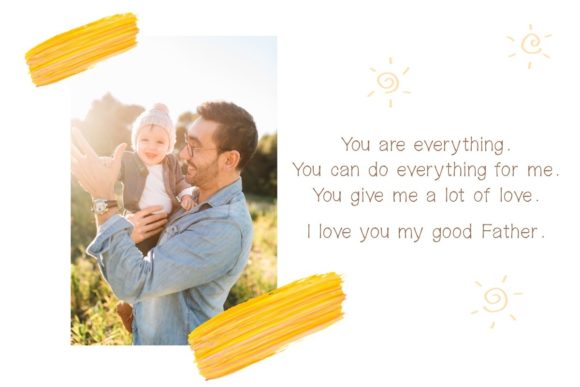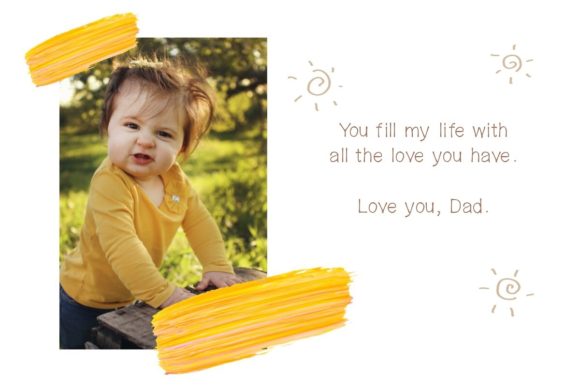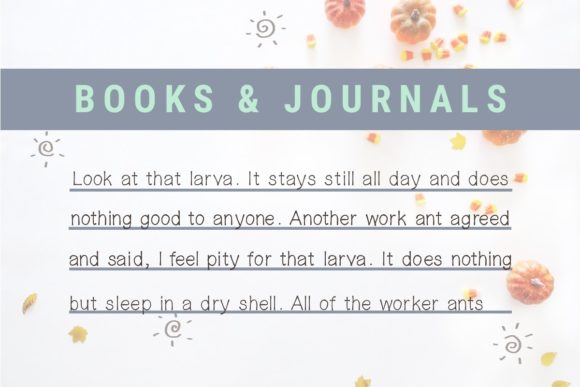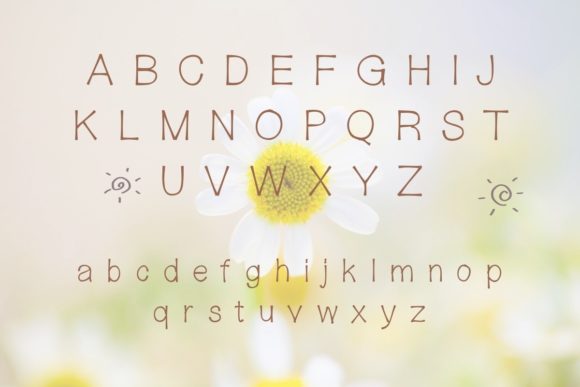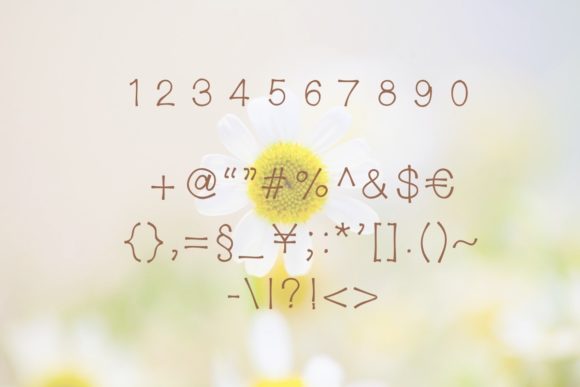
Introducing Charlotte Font: The Ultimate Sans Serif for Creative Projects
Are you a designer or crafter looking for a font that can elevate your creative projects to the next level? Look no further than Charlotte Font, a minimal and neat sans serif font that is perfect for a wide range of applications. With its clean and simple design, Charlotte Font can easily be matched to an incredibly large set of projects, making it a versatile and valuable addition to your font collection.
What is Charlotte Font?
Charlotte Font is a sans serif font, which means it doesn’t have the small lines or flourishes that are characteristic of serif fonts. This makes it a great choice for projects where you want a clean and modern look. The font is highly legible, even at small sizes, making it perfect for use in body text, headings, and titles.
Key Features of Charlotte Font
- Minimal and Neat Design: Charlotte Font has a simple and uncluttered design that makes it easy to read and understand.
- Highly Legible: The font is designed to be highly legible, even at small sizes, making it perfect for use in a wide range of projects.
- Versatile: Charlotte Font can be used in a wide range of projects, from digital designs to print materials.
- Easy to Pair: The font can easily be paired with other fonts to create a unique and cohesive look.
Why Choose Charlotte Font?
- Unique and Modern Look: Charlotte Font has a unique and modern look that will help your projects stand out from the crowd.
- Easy to Read: The font is highly legible, making it easy for your audience to read and understand your content.
- Flexible: Charlotte Font can be used in a wide range of projects, from digital designs to print materials.
How to Use Charlotte Font
- Use it as a Body Font: Charlotte Font is perfect for use as a body font, providing a clean and easy-to-read base for your content.
- Use it as a Heading Font: The font can also be used as a heading font, providing a bold and eye-catching way to highlight important information.
- Pair it with Other Fonts: Charlotte Font can be paired with other fonts to create a unique and cohesive look.
Projects that Charlotte Font is Perfect For
Charlotte Font is perfect for a wide range of projects, including:
- Digital Designs: The font is perfect for use in digital designs, such as website designs, social media graphics, and more.
- Print Materials: Charlotte Font can also be used in print materials, such as brochures, flyers, and business cards.
- Branding and Identity: The font can be used to create a unique and cohesive brand identity.
- Crafting and DIY Projects: Charlotte Font is also perfect for use in crafting and DIY projects, such as handmade cards, gift tags, and more.